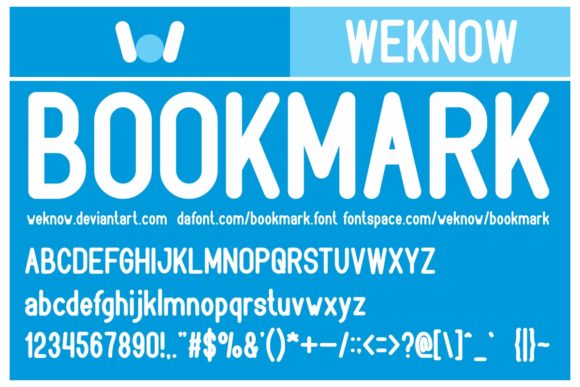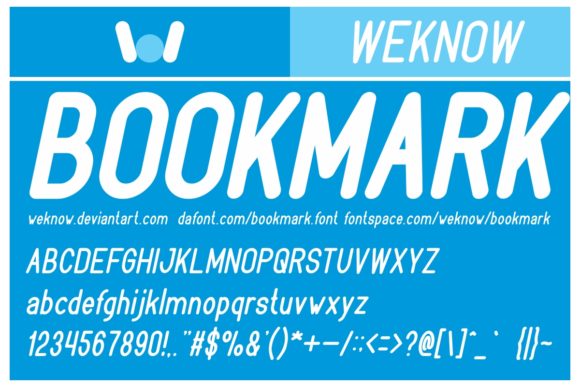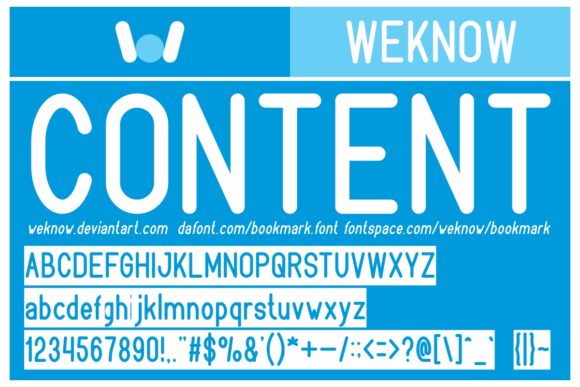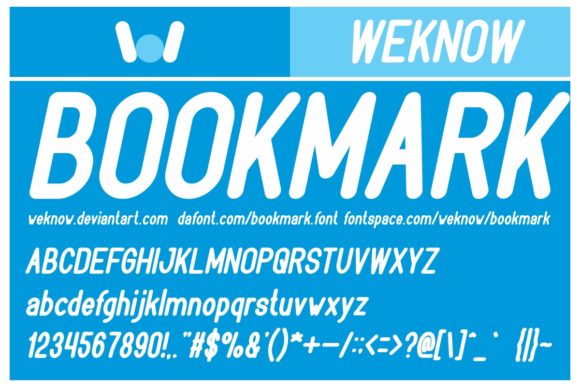
Introducing Bookmark Font: The Epitome of Elegance and Sophistication
In the realm of typography, few fonts manage to strike a balance between simplicity and sophistication. However, Bookmark Font stands out as a beacon of elegance, boasting a minimalist design that exudes refinement and poise. This sans serif font is meticulously crafted to make a lasting impression, particularly in logos, branding, packaging design, and various other creative endeavors.
The Design Philosophy Behind Bookmark Font
Bookmark Font’s design philosophy revolves around the concept of minimalism without compromising on character. Each letter is carefully constructed to embody a sense of elegance, ensuring that the font remains versatile and highly legible across various applications. The clean lines and uncluttered aesthetic of Bookmark Font make it an ideal choice for designers seeking a sophisticated look that won’t overwhelm the senses.
Key Features of Bookmark Font
- Elegant and Minimalist Characters: The font’s sleek design ensures that it can be used in a variety of contexts, from luxury branding to editorial design, without ever appearing out of place.
- Versatility: Bookmark Font’s versatility is one of its standout features. It can be scaled up or down without losing its charm, making it perfect for everything from billboards to business cards.
- Legibility: Despite its minimalist approach, Bookmark Font does not compromise on legibility. It remains clear and readable even at smaller sizes, which is crucial for ensuring effective communication.
- Wide Range of Applications: From logos and branding to packaging design and digital media, Bookmark Font’s adaptability makes it a valuable asset for any designer.
Applications of Bookmark Font
The applications of Bookmark Font are vast and varied. Here are a few examples of how this versatile font can be utilized:
- Logo Design: The font’s unique blend of simplicity and sophistication makes it perfect for logos that need to convey a sense of elegance and professionalism.
- Branding: For brands aiming to project a refined and upscale image, Bookmark Font can be a game-changer. Its elegant appearance can elevate a brand’s visual identity, making it more memorable.
- Packaging Design: In packaging design, the font’s clarity and aesthetic appeal can enhance the overall look of a product, making it stand out on store shelves.
- Digital Media: For websites, social media posts, and digital advertising, Bookmark Font can add a touch of sophistication, helping content to stand out in a crowded digital landscape.
Why Bookmark Font Stands Out
In a sea of fonts, Bookmark Font distinguishes itself through its masterful design and adaptability. It is not just a font; it’s a tool that can transform a designer’s work, adding a level of sophistication that is hard to achieve with more generic typefaces. Whether you’re working on a high-end brand campaign or a personal project, Bookmark Font has the potential to elevate your design to new heights.
Bookmark Font is more than just a typeface; it’s a statement of elegance and refinement. Its minimalist design, combined with its versatility and legibility, makes it a must-have for designers and crafters looking to add a touch of sophistication to their work. Whether you’re involved in logo design, branding, packaging, or digital media, Bookmark Font is a valuable resource that can help you achieve your creative goals with style.
In conclusion, if you’re on the lookout for a font that embodies both simplicity and sophistication, look no further than Bookmark Font. Its impact on your designs is sure to be profound, offering a level of elegance that will set your work apart from the rest.